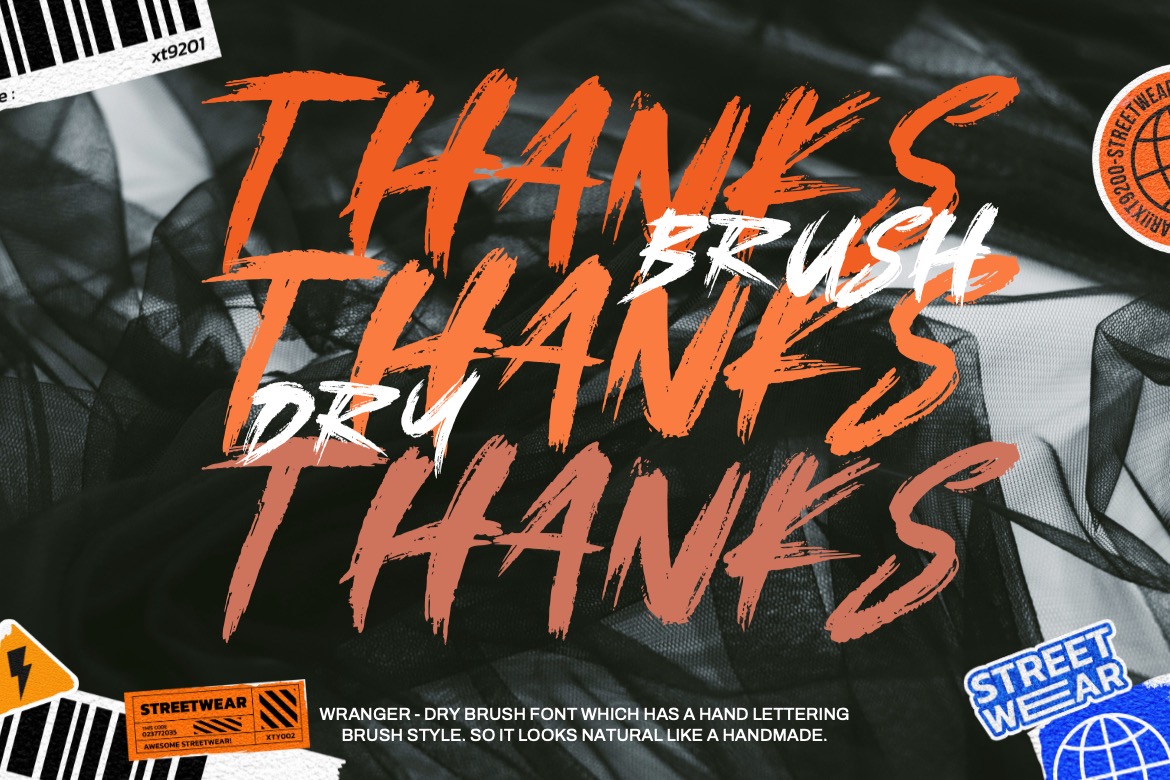
Wranger is the kind of display font that doesn’t just “style” a design—it defines the brand voice. With its dry-brush, hand-lettered texture and fast, energetic strokes, it instantly signals something bold, human, and unapologetically expressive—perfect when a brand needs to be recognized from the first glance.
This typeface fits brands that live in movement and culture: streetwear labels, skate communities, sports and fitness campaigns, music posters, youth events, sneaker resellers, barbershops, coffee shops with an urban edge, and product lines that rely on drops, hype, or limited releases. Wranger works especially well when your brand is built around strong headlines—names, slogans, product series, or punchy calls-to-action—rather than long-form messaging.
The personality Wranger builds is confident, gritty, and energetic. It feels handcrafted and spontaneous, giving a brand a more authentic, “made by real people” attitude. Depending on how you apply it, it can read as rebellious and loud (high contrast, big scale), or more premium-street (clean layouts, controlled spacing, fewer words). It’s not a neutral font—and that’s its strength: it creates a recognizable tone that viewers quickly associate with a specific style of brand.
For visual consistency, Wranger performs best when treated as a signature display element. Use it consistently for key brand moments—hero titles, campaign headers, product names, shirt graphics, and social thumbnails—while keeping supporting typography simple and restrained so the brush texture stays the star. The font holds up across different applications (print, digital, apparel) as long as you keep enough contrast with the background and avoid shrinking it too small, where the dry-brush detail can fade.
Wranger becomes a strong choice when your brand needs instant impact and a clear attitude—especially for launches, promos, posters, merchandise, and social campaigns where the message must hit fast and feel alive. Typeface: Display. Designer: Dhabee. License: Free for Personal Use.